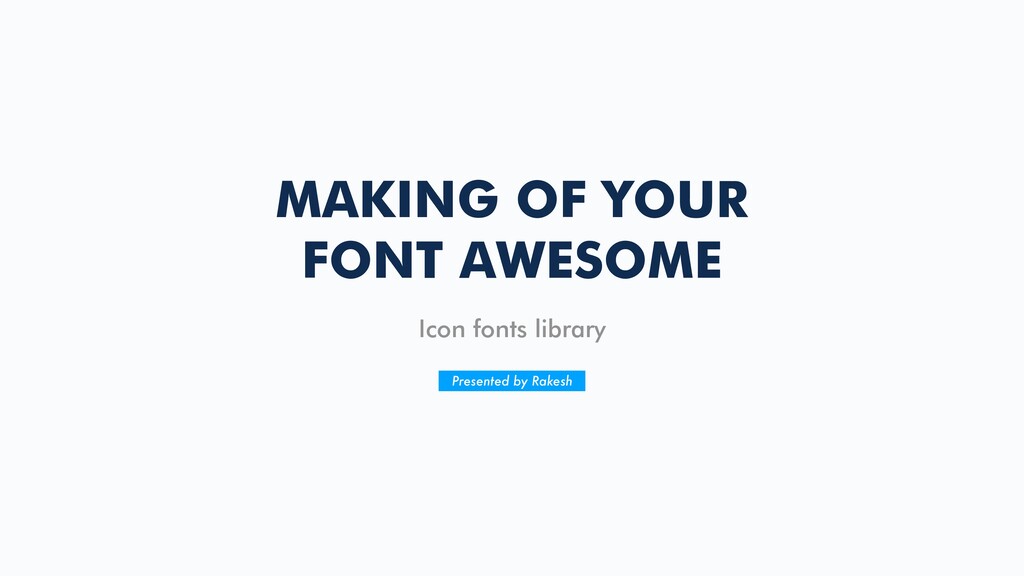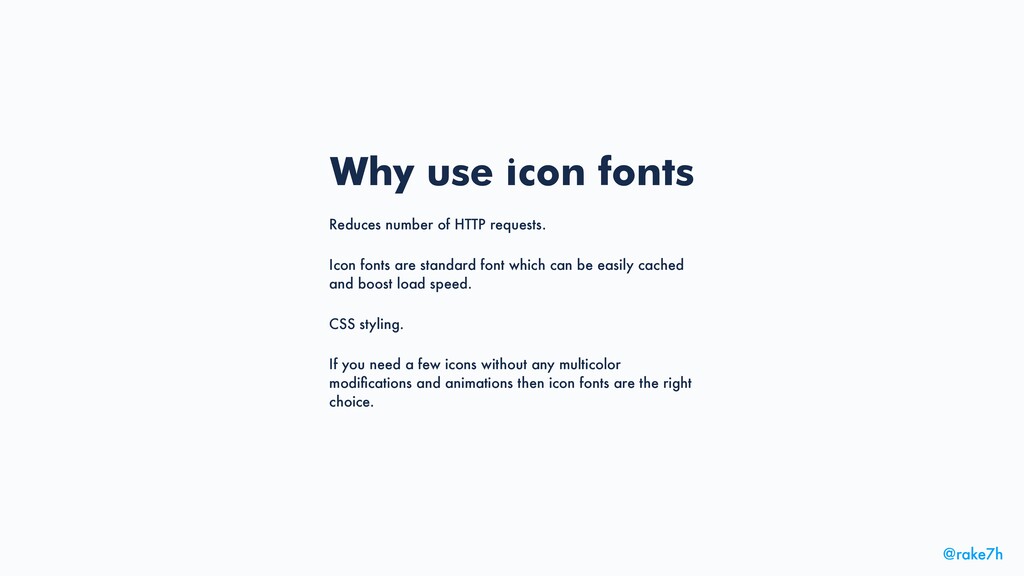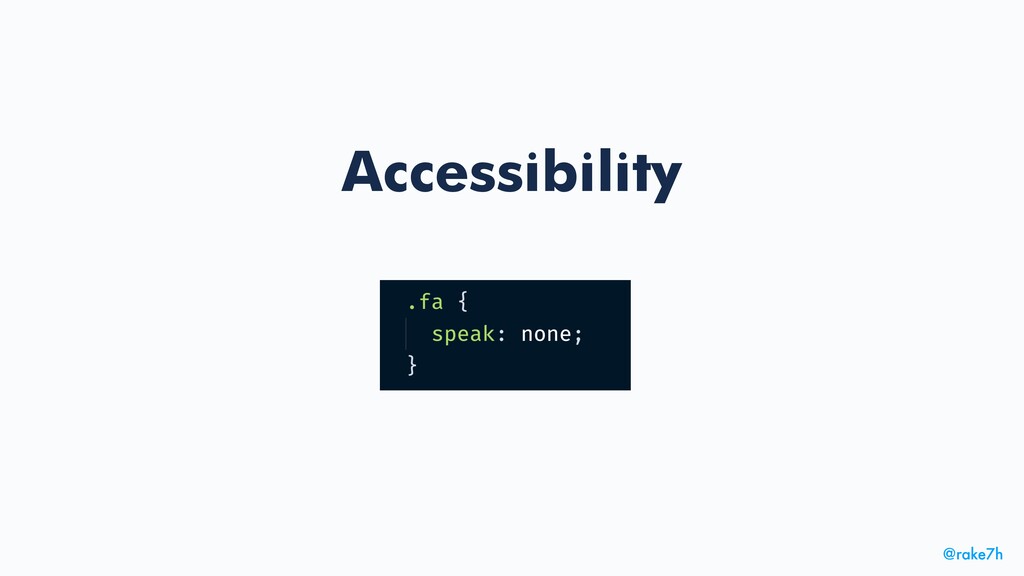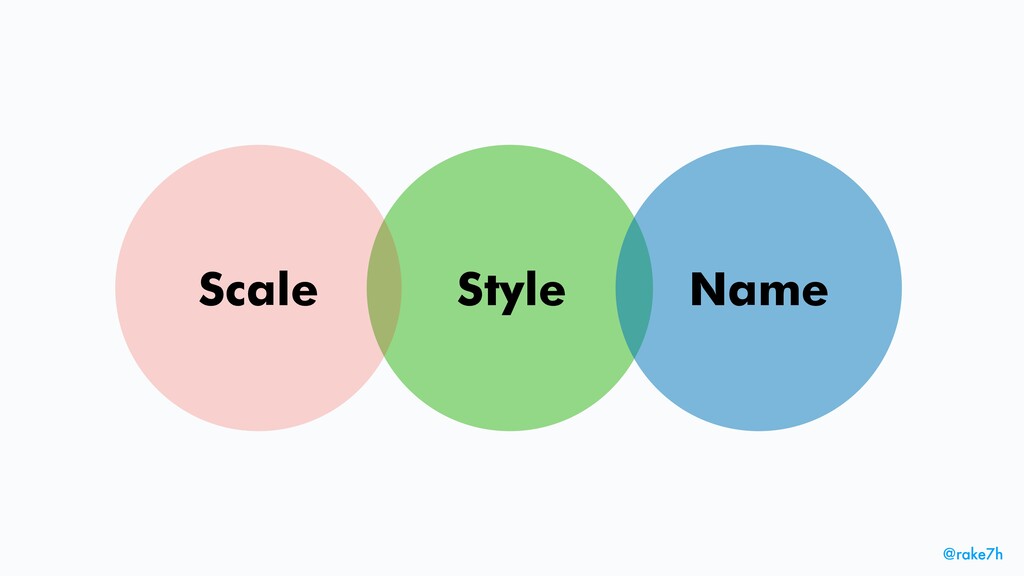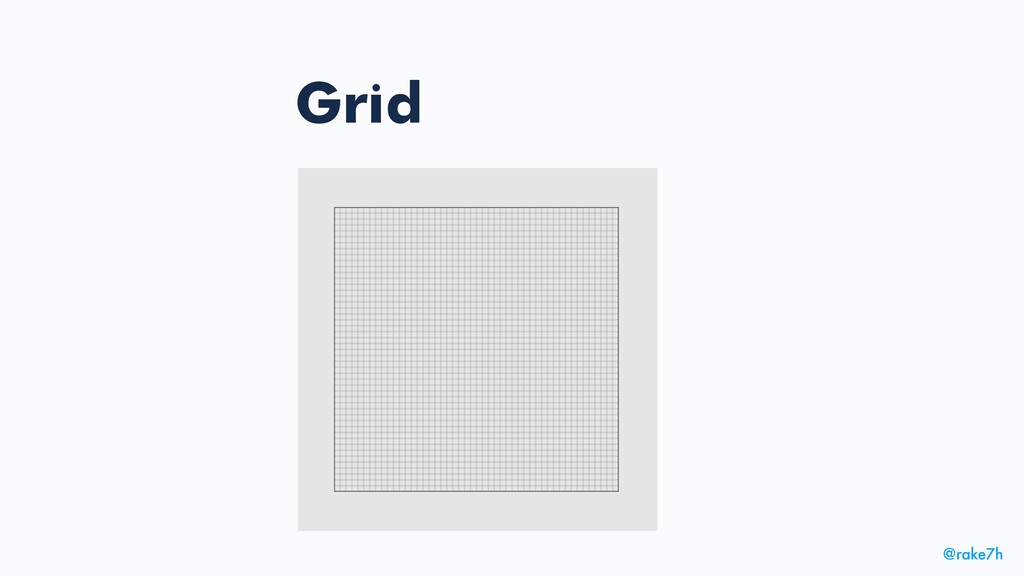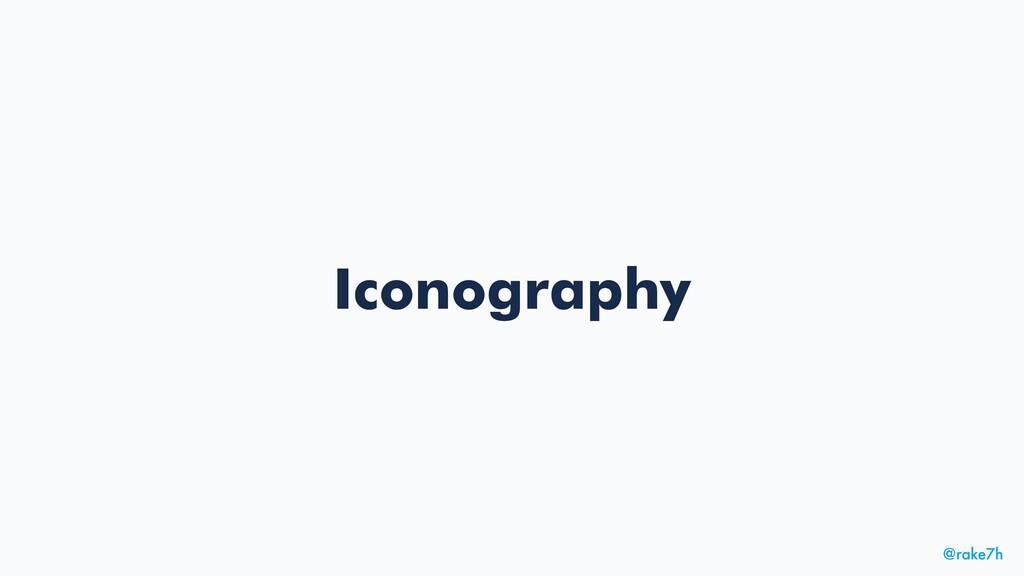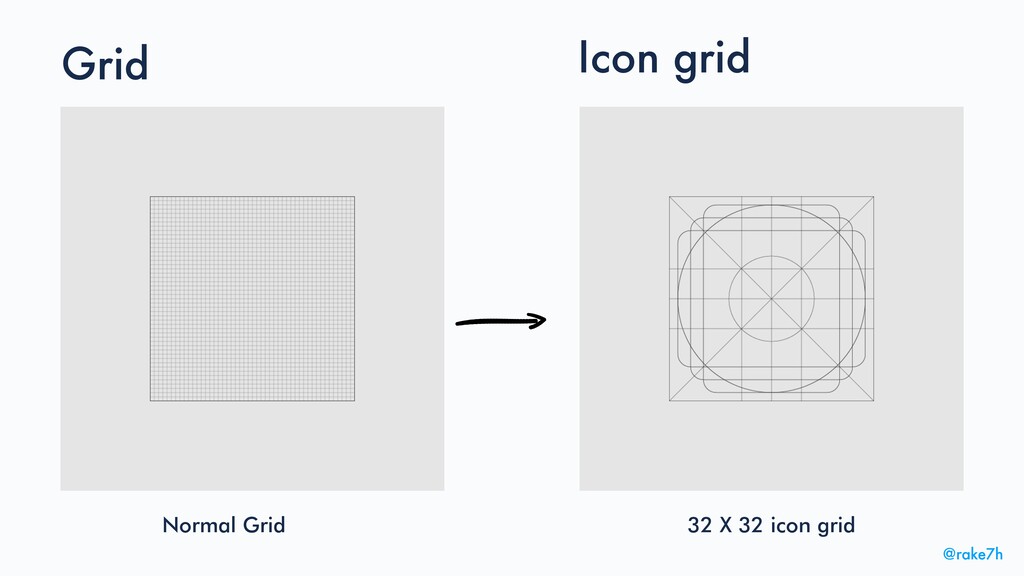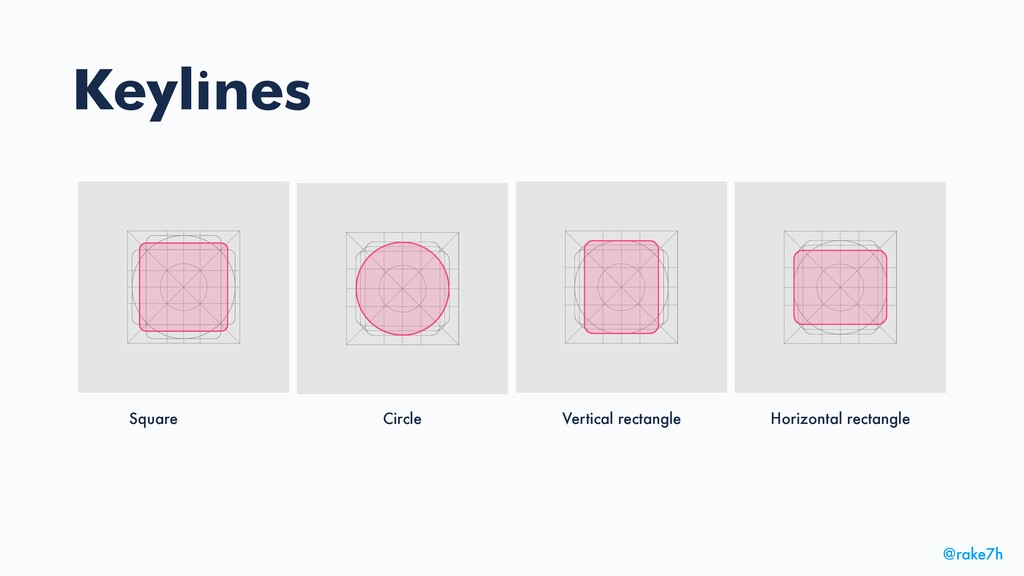
Making of your own Font Awesome 😎
Creation of icon fonts library, like font awesome.
1. @rake7h What are Icon Fonts? Icon fonts are just fonts.
However, instead of containing letters or numbers, they contain symbols and glyphs. You can style them with CSS in the same way you style regular text.
2. @rake7h Why use icon fonts Reduces number of HTTP requests.
Icon fonts are standard font which can be easily cached and boost load speed. CSS styling. If you need a few icons without any multicolor modifications and animations then icon fonts are the right choice.
3. @rake7h Stroke caps Using a round cap at the end
a stroke adds a sense of openness and optimism to the icon. - atlassian.design